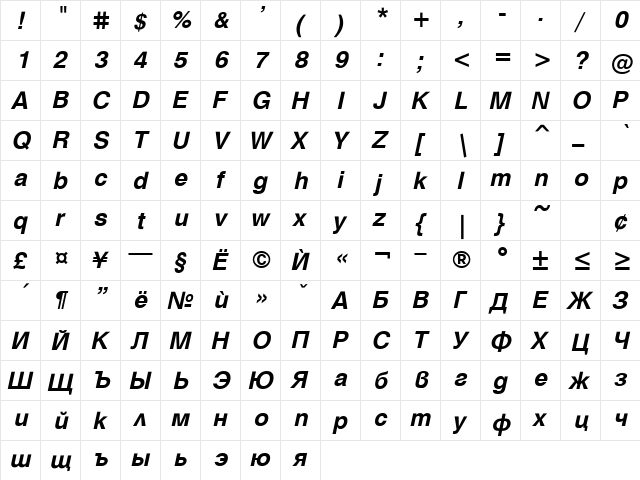
HebarB Bold Italic
Design Context for HebarB Typeface
HebarB takes a measured approach to typography — its balanced proportions and neutral character make it a reliable workhorse for both digital and print work. The dynamic lean of this cut emphasises speed and emphasis in any layout. Its bold stroke weight gives it real presence on the page.
Pro Tip: Use HebarB for emphasis, pull quotes, and subheadings where its slanted energy can add rhythm to the layout.